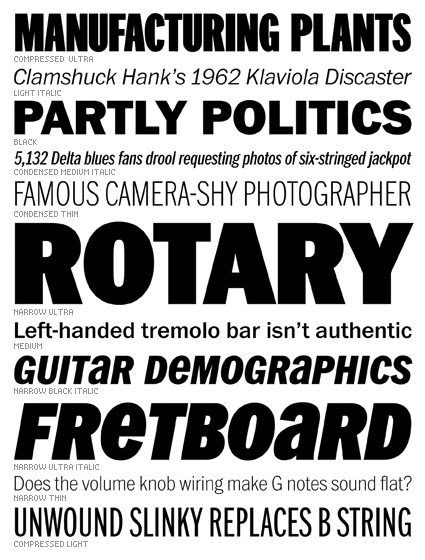
ITC Franklin (FontBureau)
In 1902 American Type Founders’ release of Franklin Gothic introduced Morris Fuller
Benton. In 1979 Victor Caruso, International Typeface Corporation, increased the
series to four photocomp weights, Light, Medium, Bold and Black, all with italics.
In 1991 David Berlow added Condensed, Compressed and Extra Compressed widths.
Berlow has completed his definitive revision, a single new series, ITC Franklin.